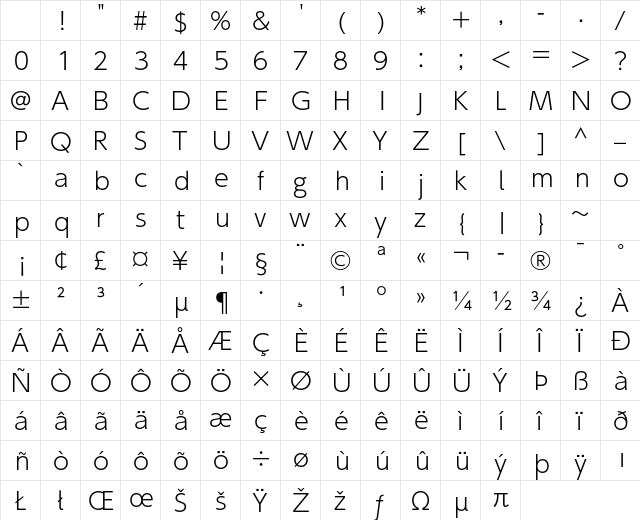
MO ClearTone SG Light Free Font
MO ClearTone SG Light
MO ClearTone SG Family
Design Context for MO ClearTone SG
MO ClearTone SG is a composed and adaptable typeface that performs quietly and consistently across a wide range of design contexts. Its slender proportions lend an understated elegance to any composition.